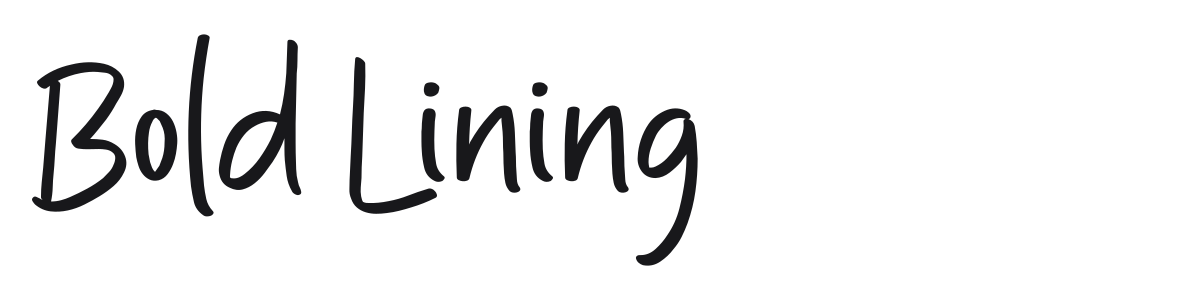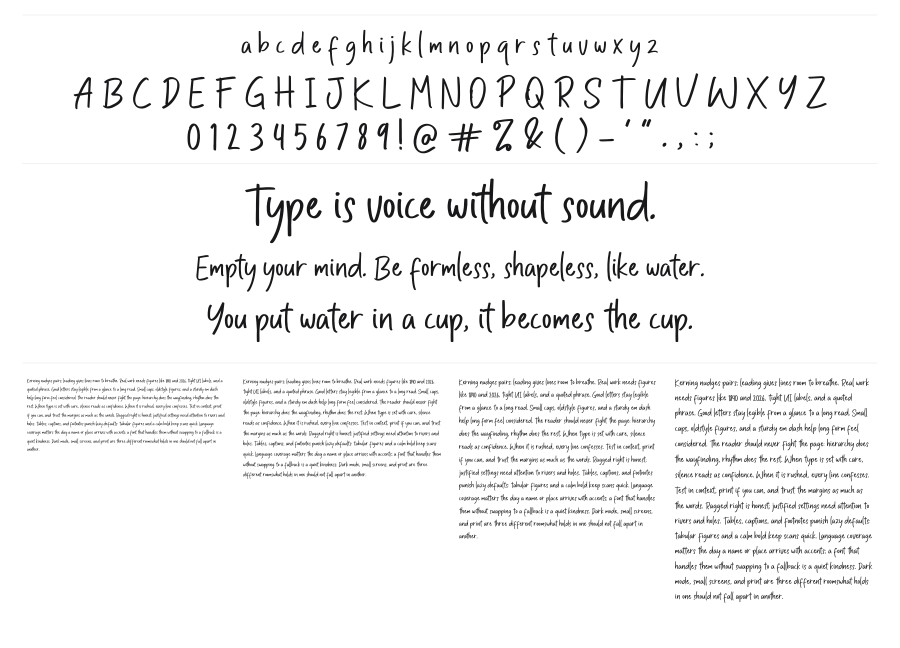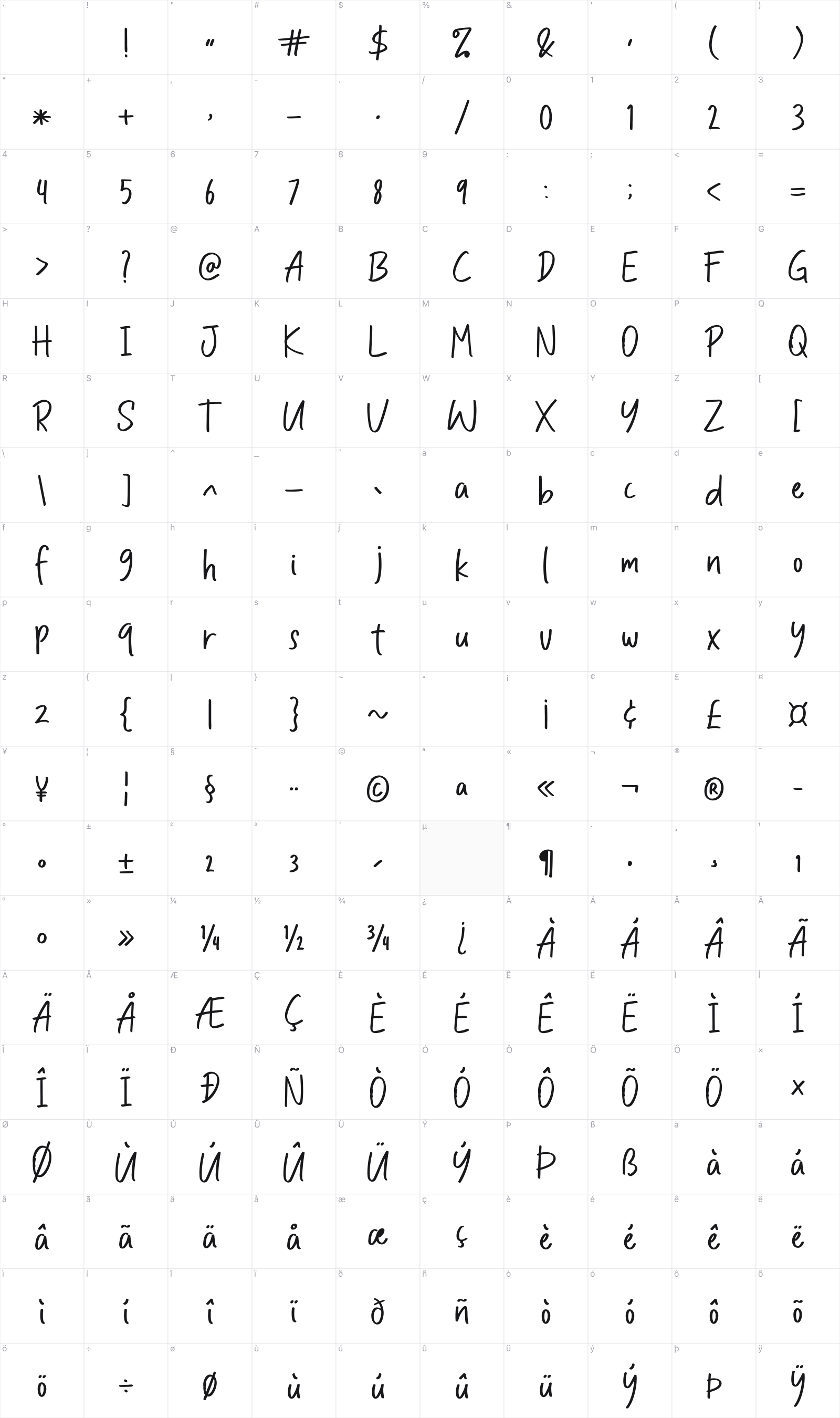
Bold Lining
Bold Lining is a bold casual handwritten script that mimics the look of thick marker pen lettering. The characters flow with an easy, informal rhythm, keeping a mostly upright stance that makes it highly legible at display sizes. It carries the kind of warmth that works naturally for brand identities, labels, and social media graphics.